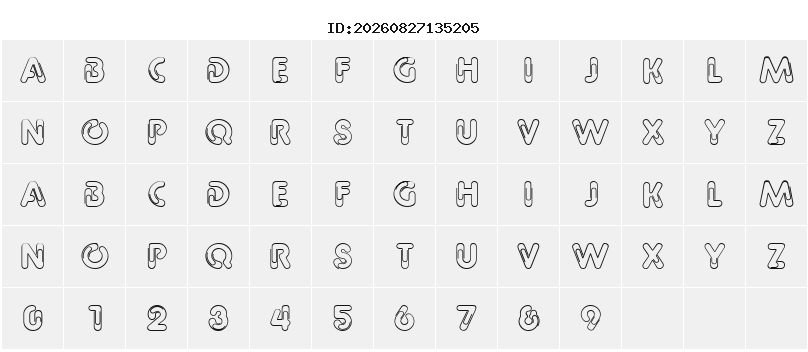
• Font Name: 132-CAI978
• Full Font Name: 132-CAI978
About 132-CAI978.ttf
132-CAI978.ttf is a modern, elegant sans-serif font designed for ultimate readability and visual harmony. Perfect for branding, headlines, web design, and print materials.